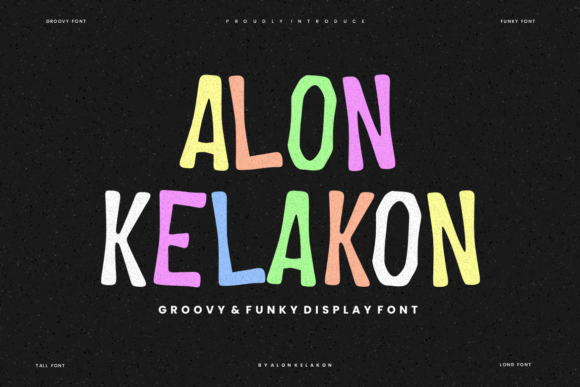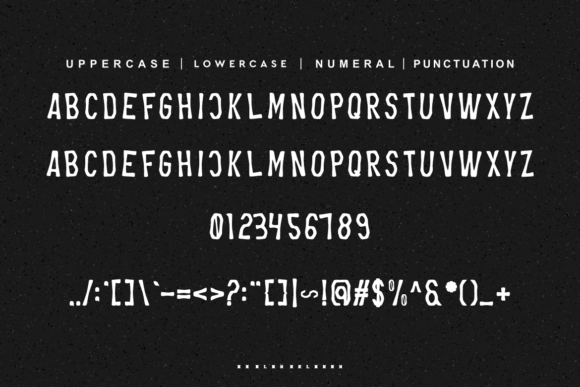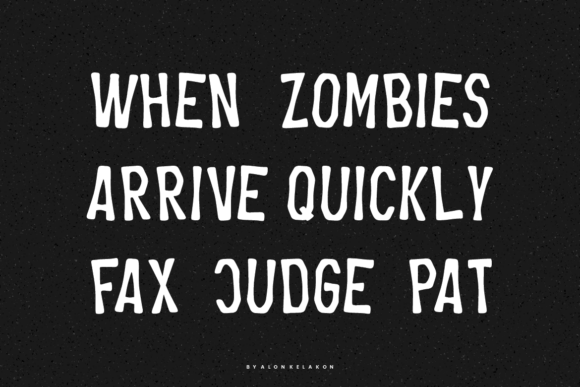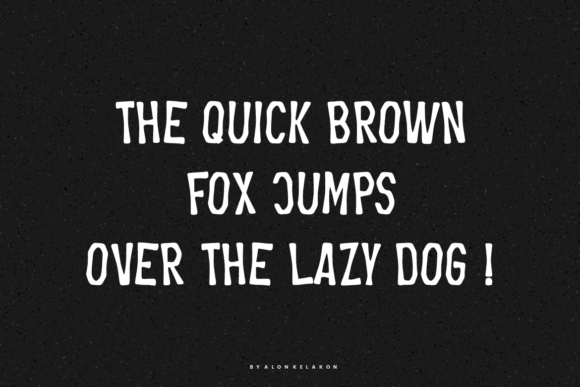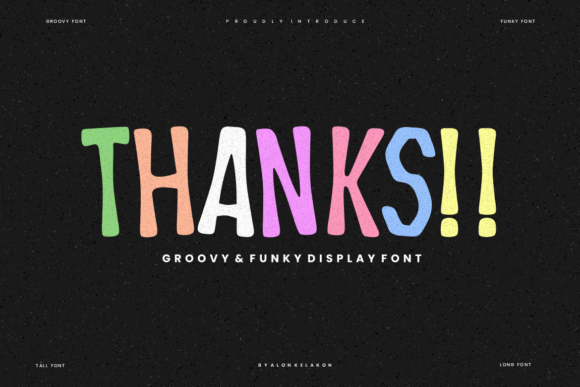
Introduction to Radecon Font
Radecon is a bold and assertive sans serif font.
| 👤 Author | alonkelakon |
Radecon Font offers exceptional quality and versatility, making it a valuable addition to your design toolkit. Whether you’re creating for personal projects or commercial use, Radecon Font delivers professional results.